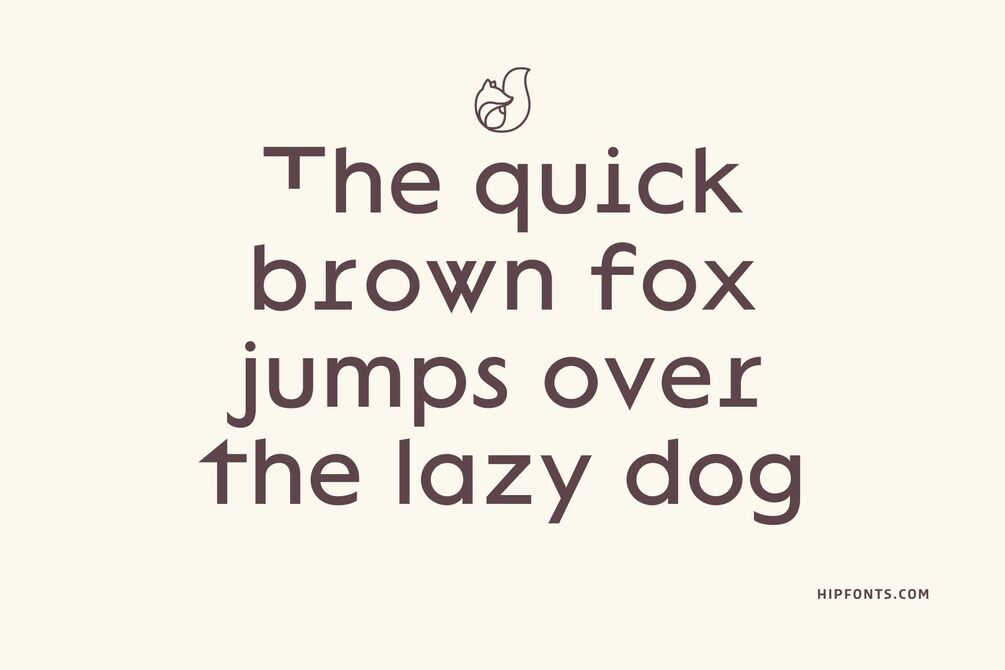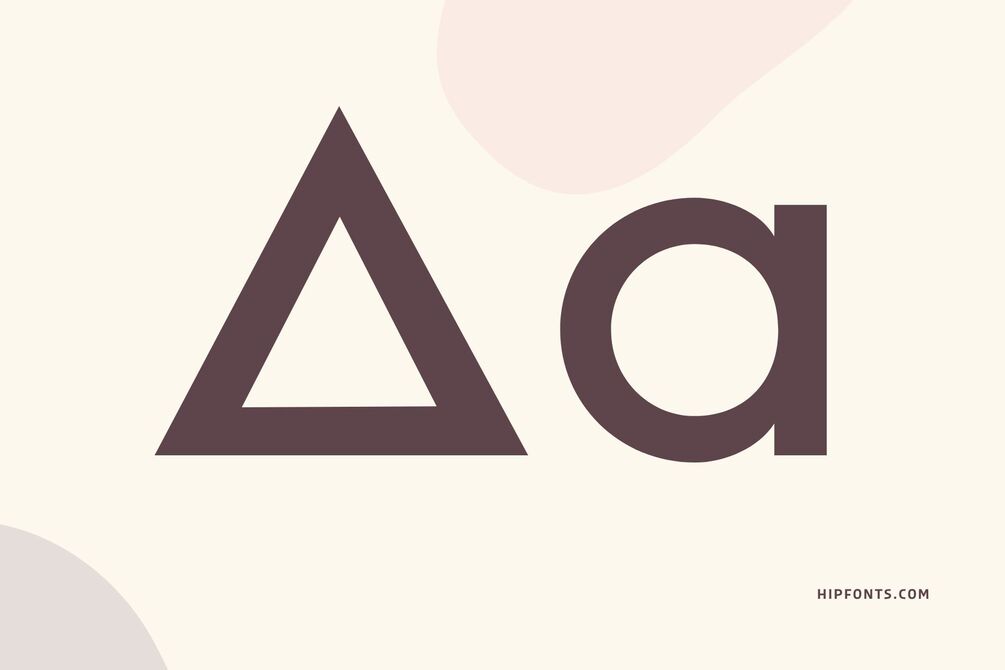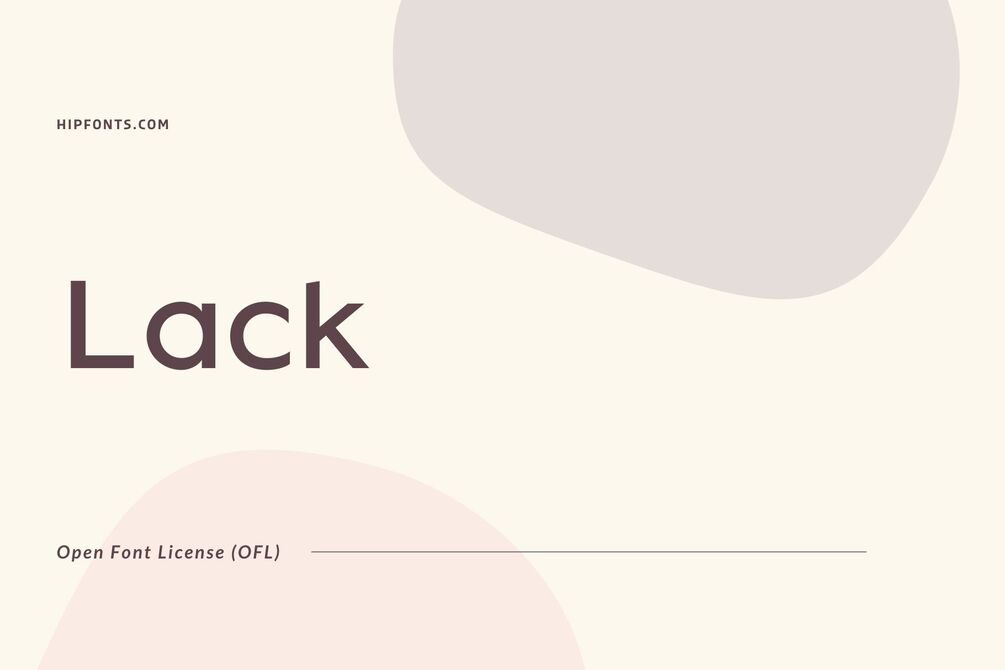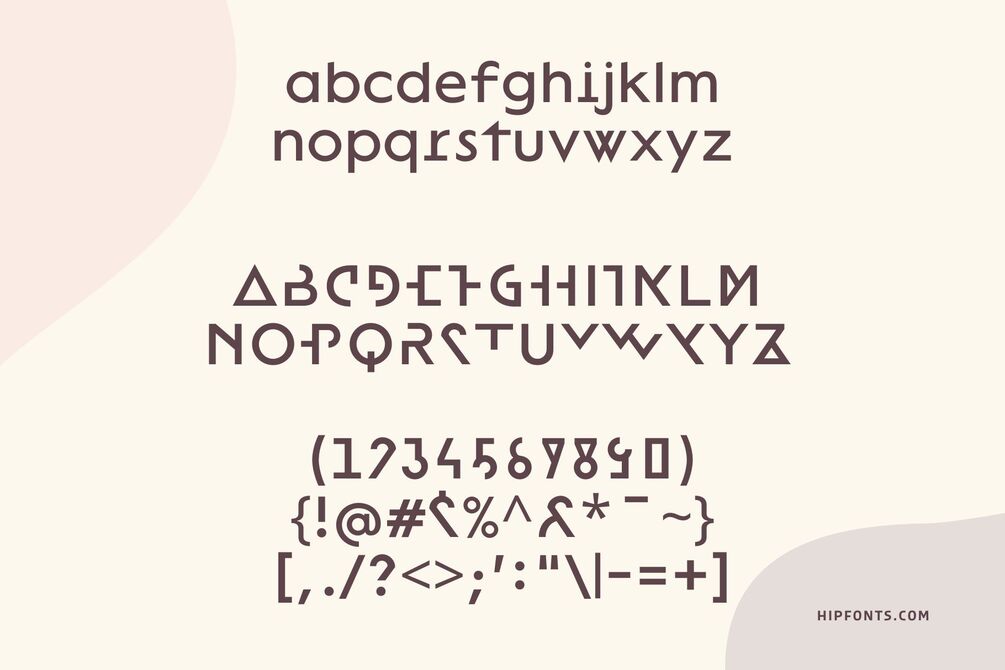
Lack
Lack is a bold and impactful font that exudes a sense of strength and authority. With its robust letterforms and distinctive geometric shapes, it makes a bold statement in any design.
Lack's strong vertical and horizontal lines create a sense of stability and structure, making it well-suited for modern and minimalist designs. Whether used in logos, headlines, or posters, Lack grabs attention and conveys a message with confidence and impact.
Its versatility allows it to be used in various design contexts, from tech and corporate branding to contemporary editorial layouts, offering designers a powerful tool to make a strong visual impact.